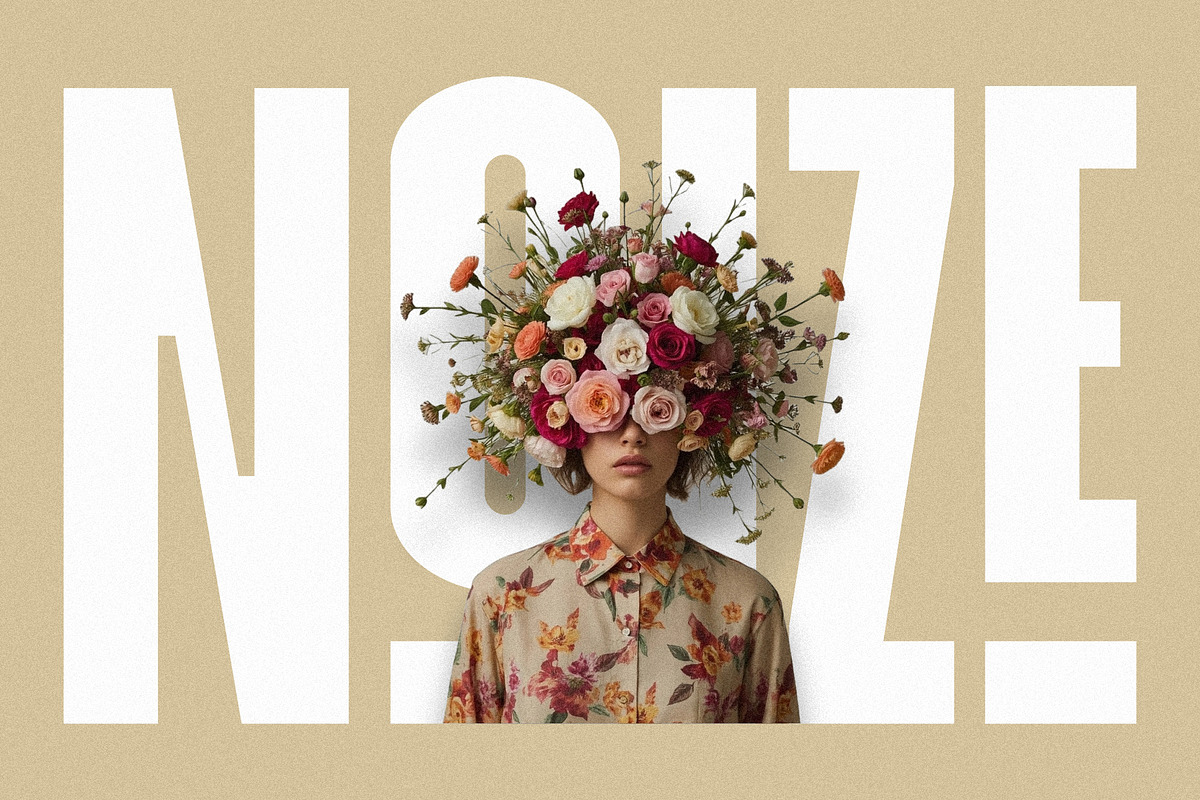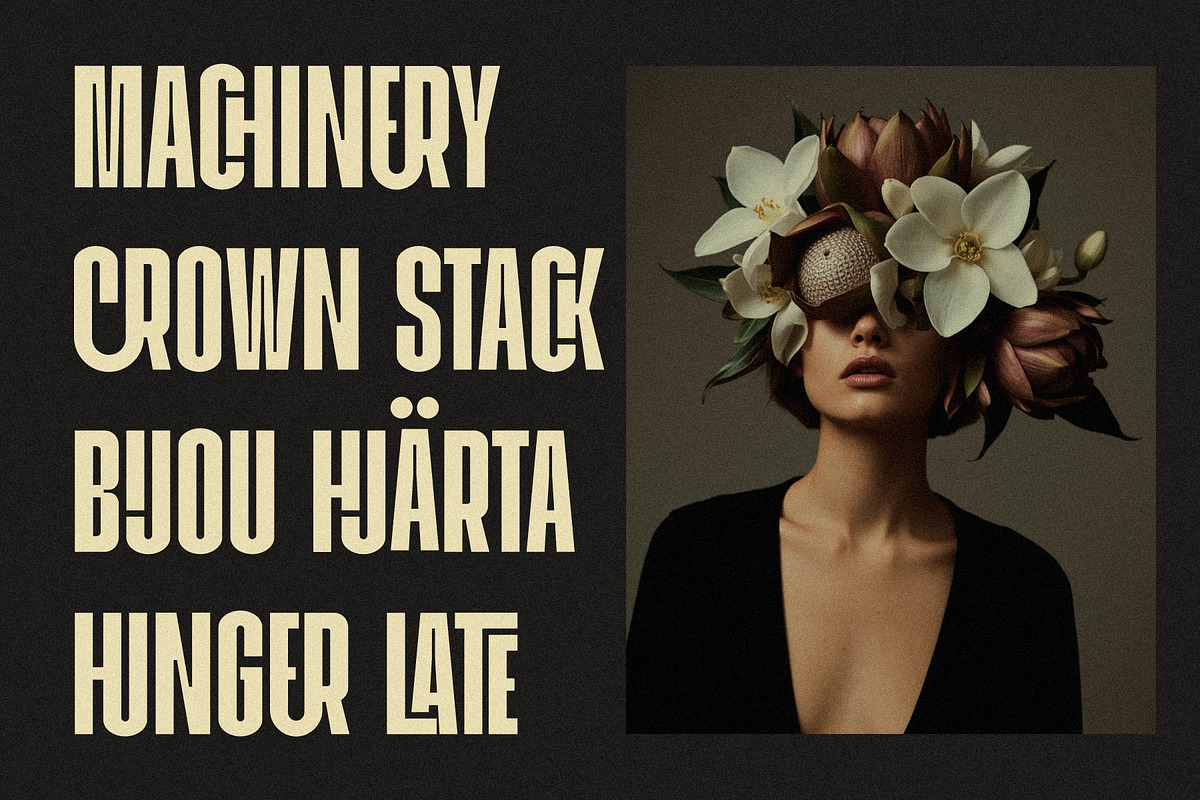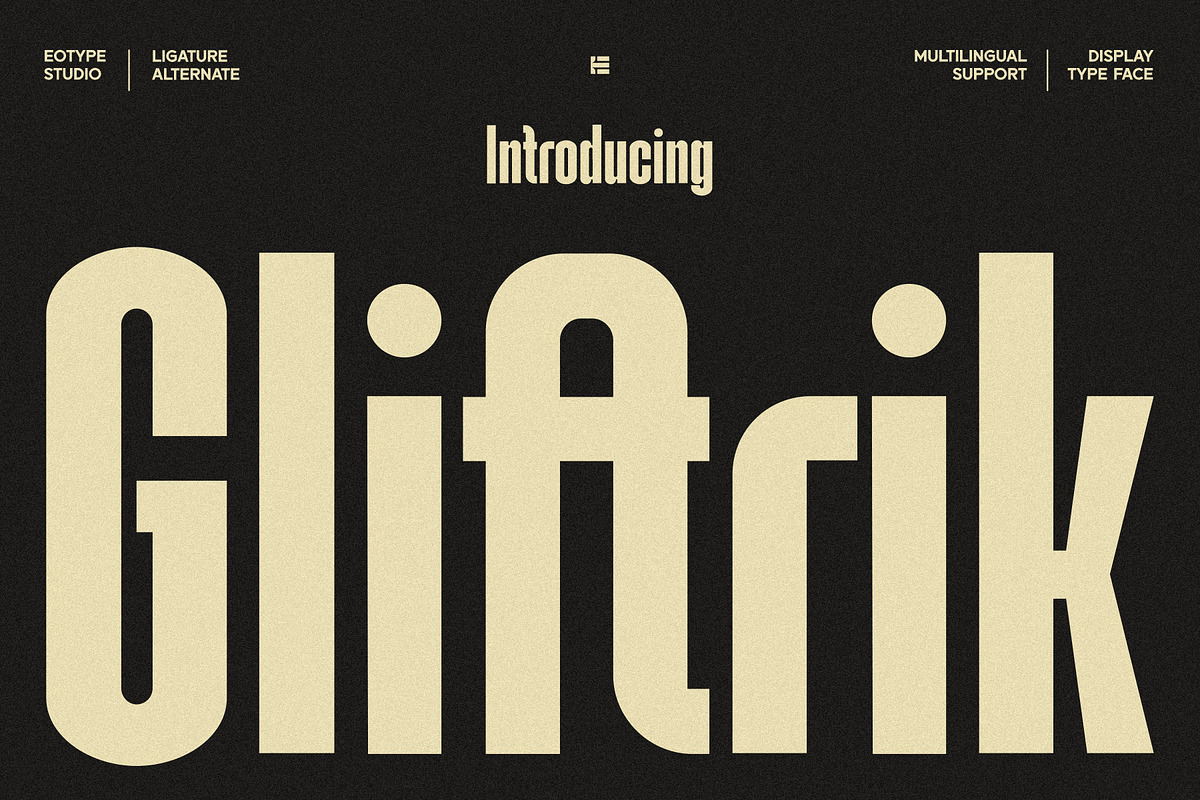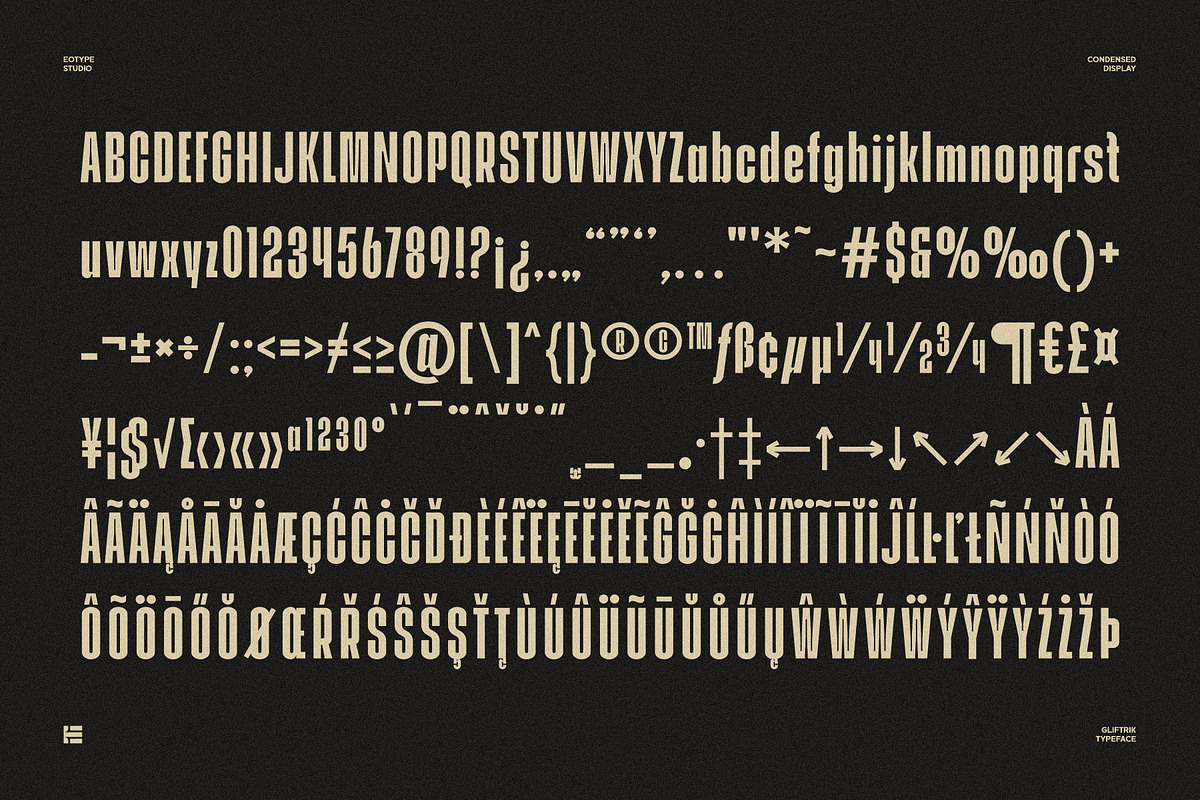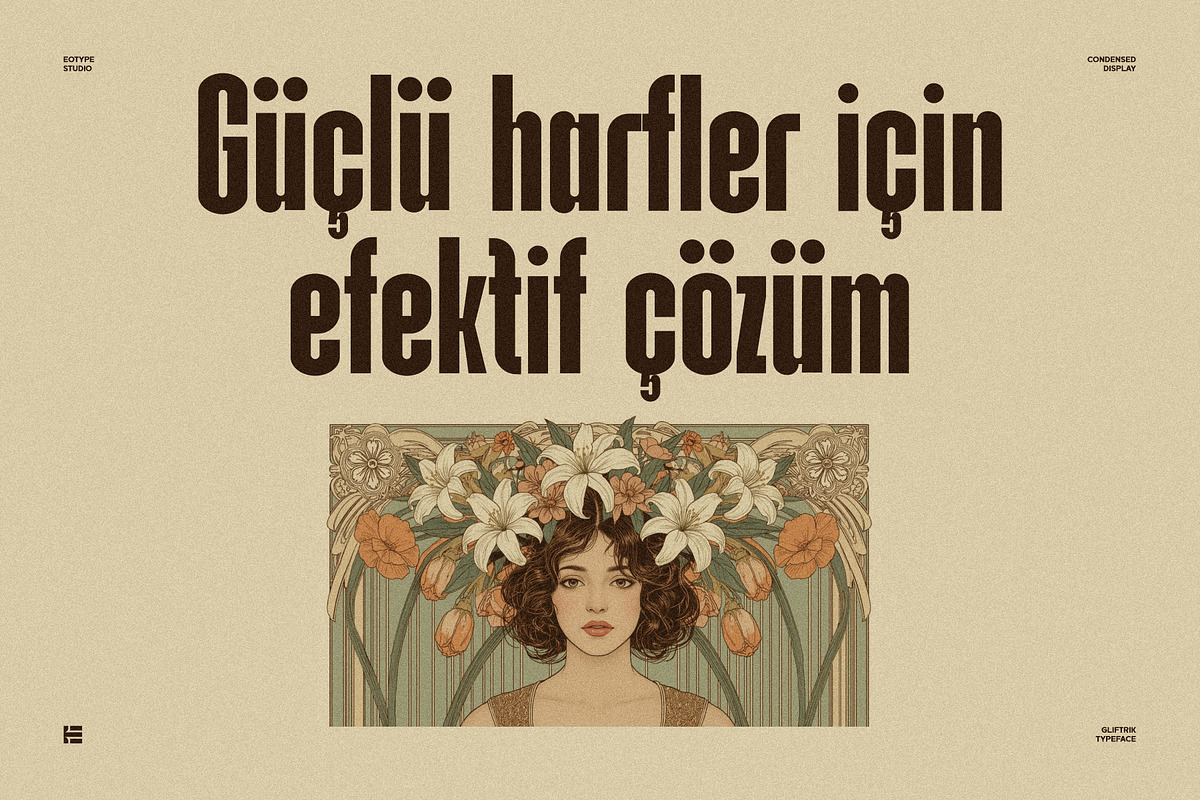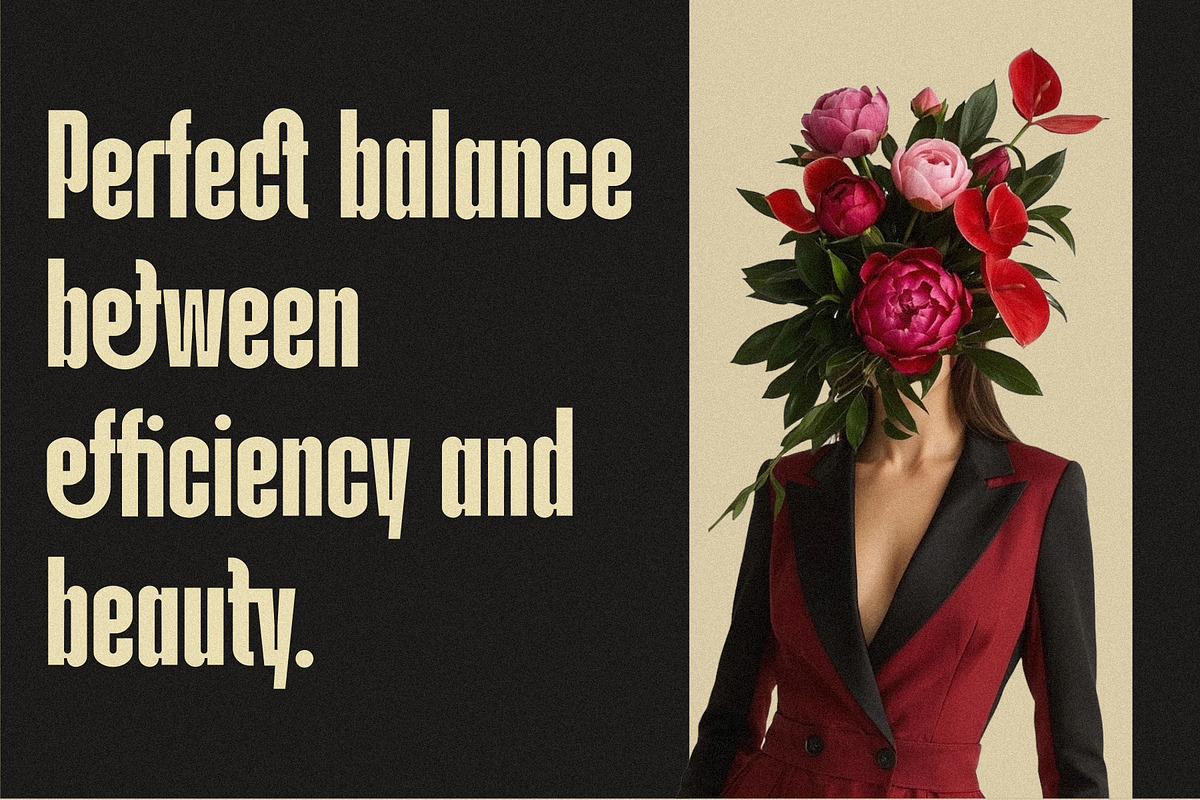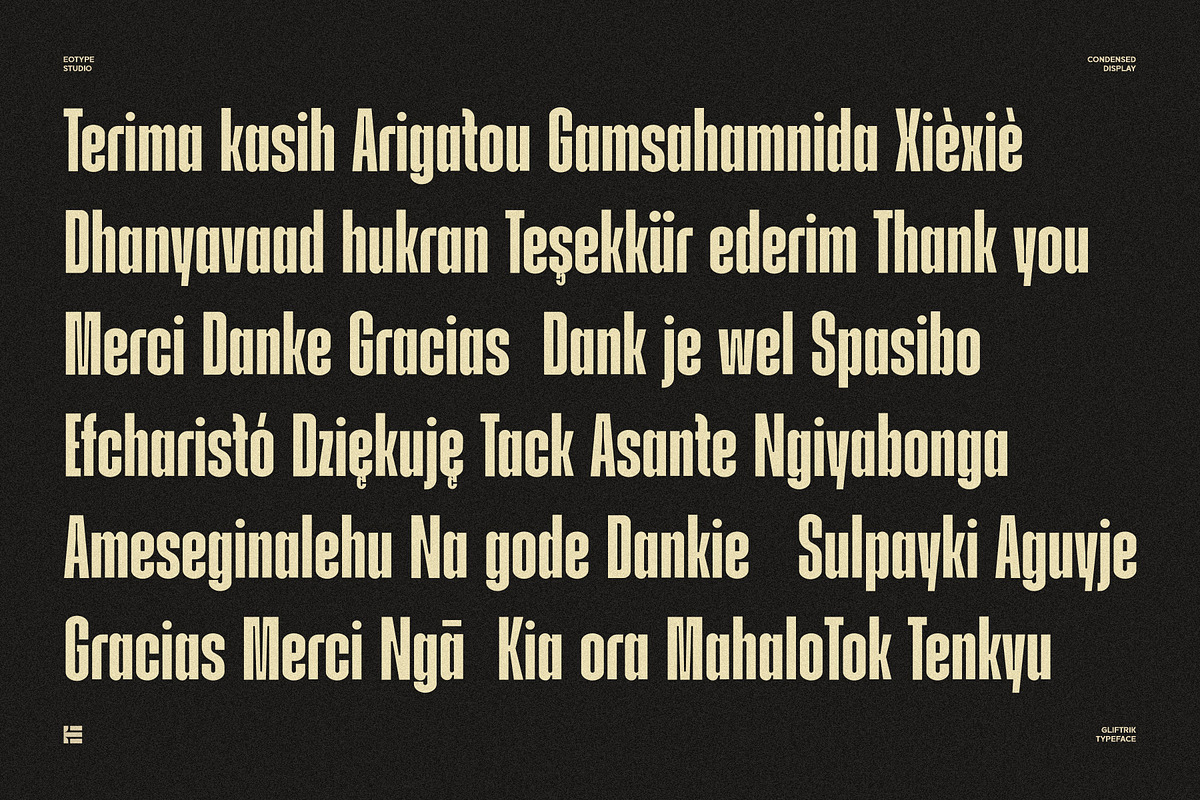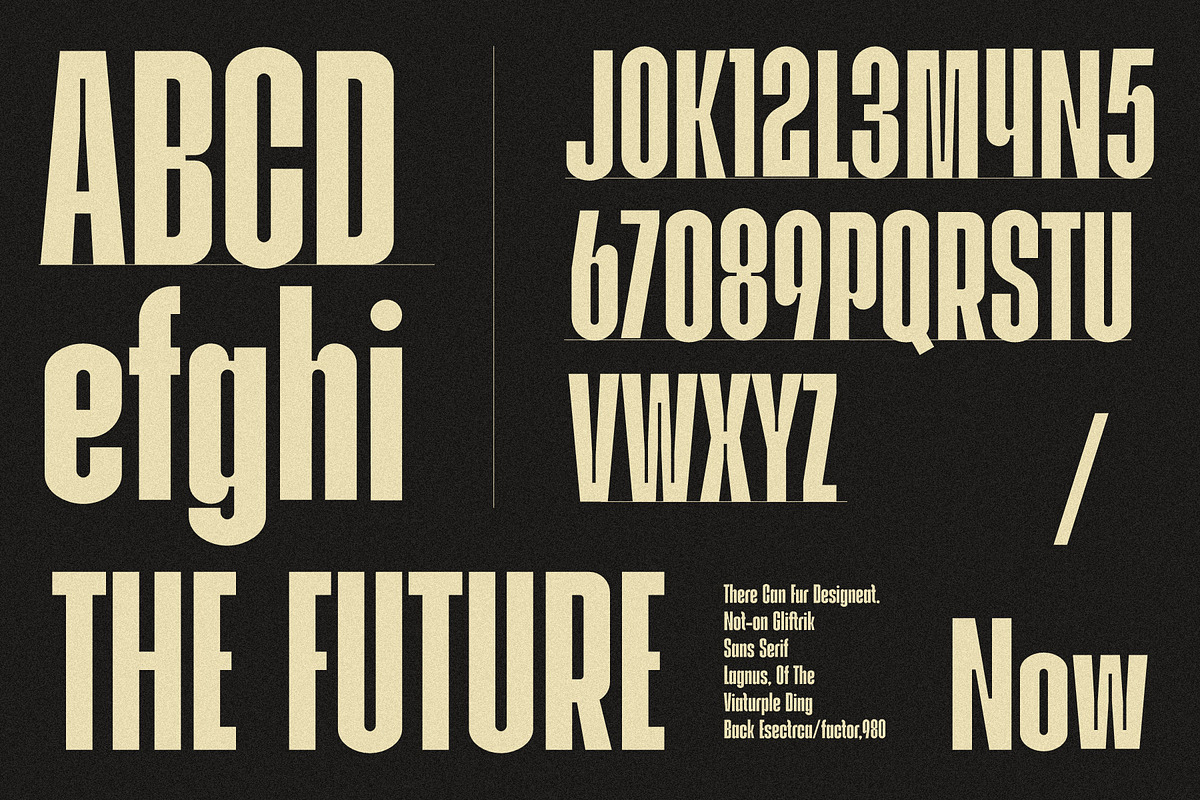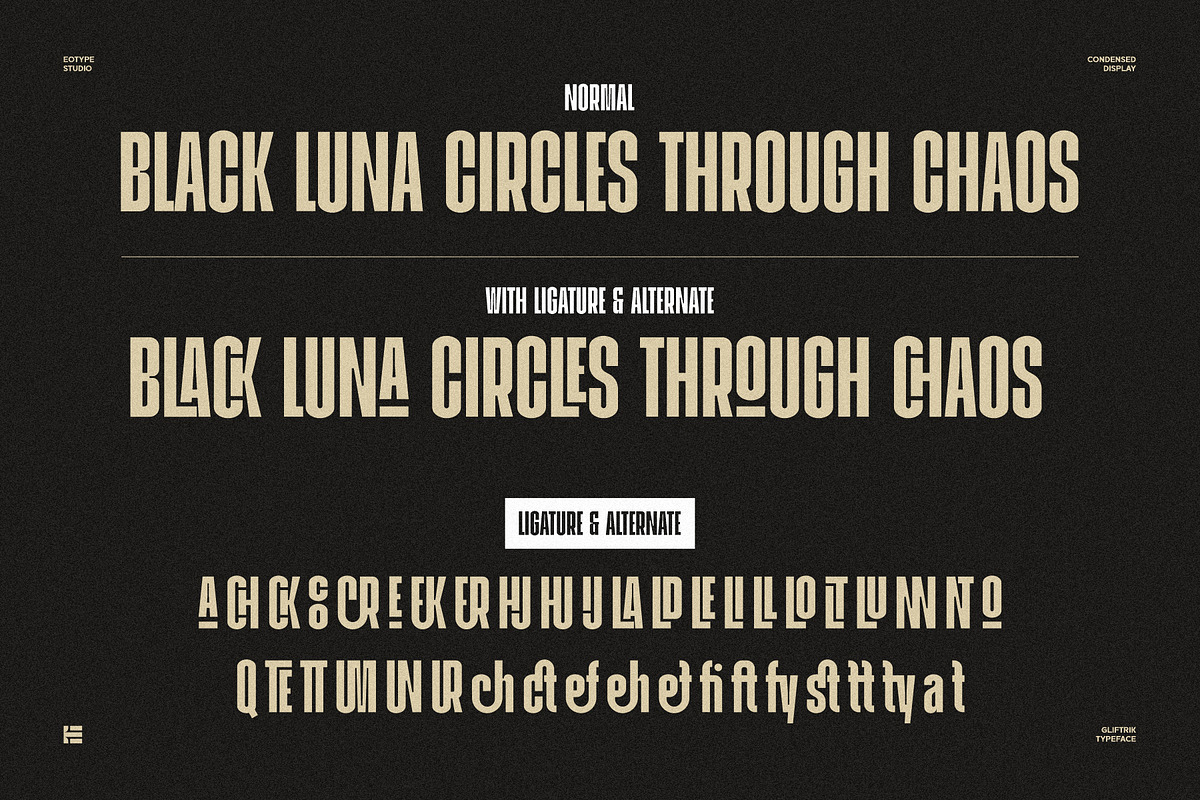
Gliftrik - Condensed San Serif
Gliftrik is a condensed sans serif that breaks the grid with flair. Designed for vertical impact, it features sharp-cut ink traps and unexpected ligatures that connect glyphs in expressive, unconventional ways—like CR, IJ, HJ, or even UN and TT.
It's loud when it needs to be, clean when it must be. With just enough rebellious detail, Gliftrik brings editorial character to posters, album covers, and modern web layouts.
Use it when the standard Grotesque feels too safe, and the brand needs something bolder, leaner, and smarter.
- Ultra-narrow width with tall proportions
- Experimental ligatures for typographic play
- Industrial ink trap accents -Latin multilingual support